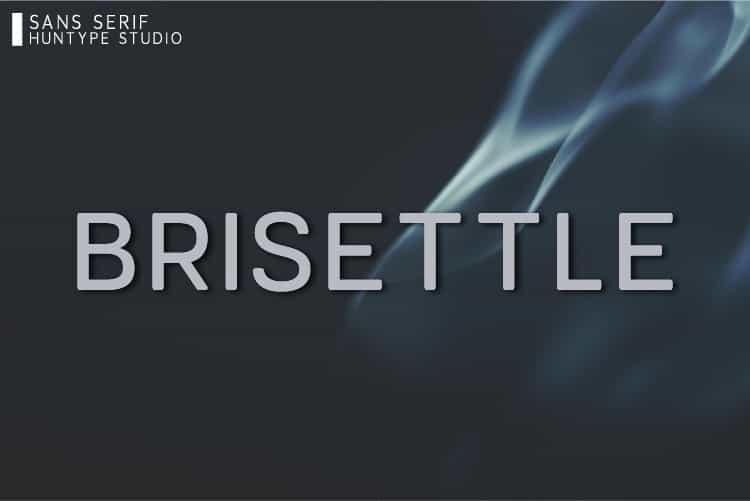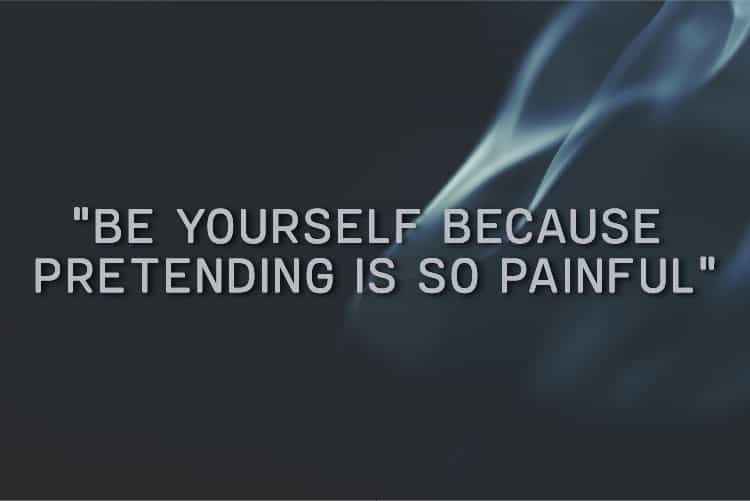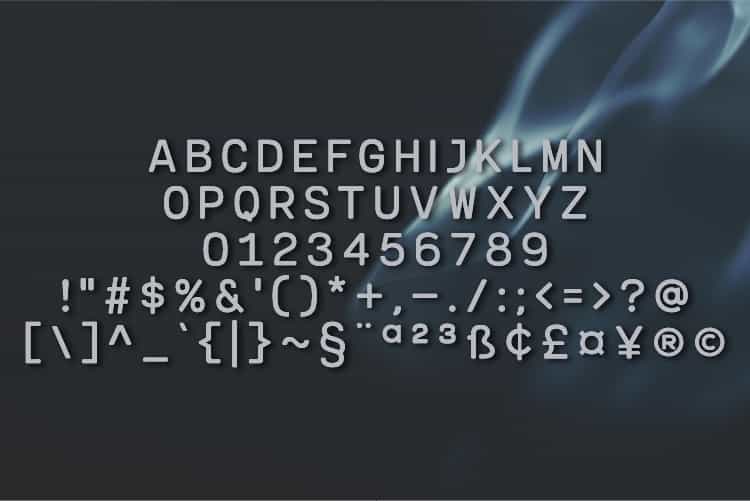
Brisettle is a flexible all caps sans serif font designed for all kinds of uses, from branding logos and web headers to branding signage and business cards. Boasting clean lines with subtle contrast hints, Brisettle can fit right in wherever it’s used!